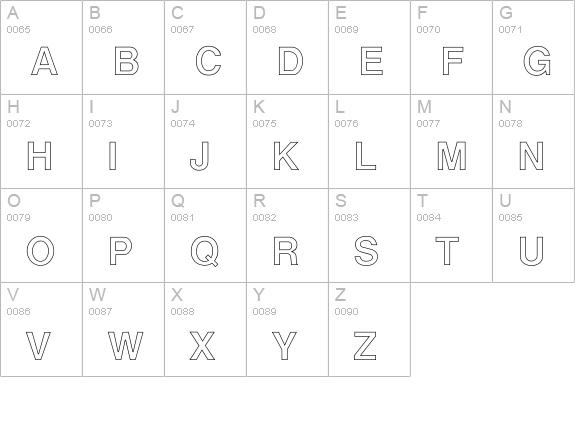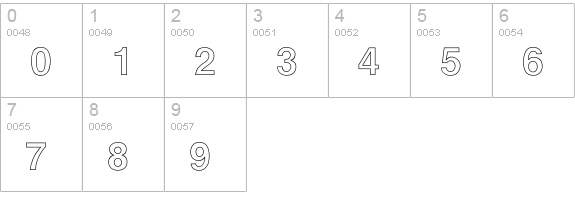
Arena Outline Font Details
Arena Outline font is a stylish and modern typeface that combines clean lines with a unique outline design. Its sleek and contemporary aesthetic makes it perfect for a wide range of design projects, from branding to advertising to social media graphics. The font offers a perfect balance between elegance and readability, making it a versatile choice for both digital and print designs. Best of all, Arena Outline font is available for free download at FontsMarket.com. This means you can easily access and use this stunning typeface without any cost. Whether you're a professional graphic designer or a creative enthusiast, Arena Outline font is a valuable addition to your font collection. Download it today and elevate your design projects with this eye-catching and modern font.